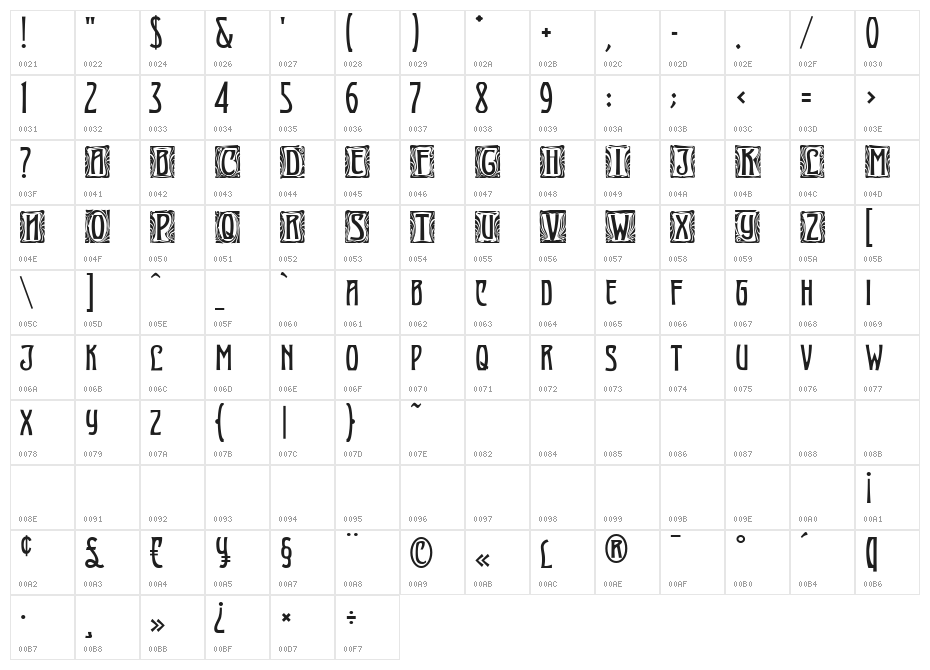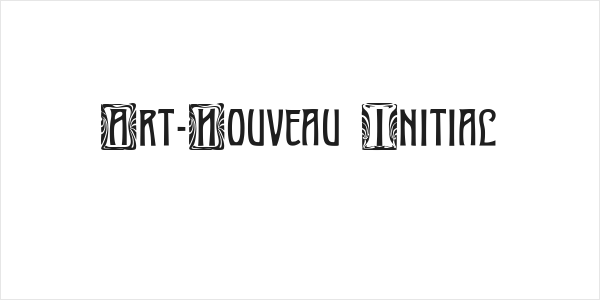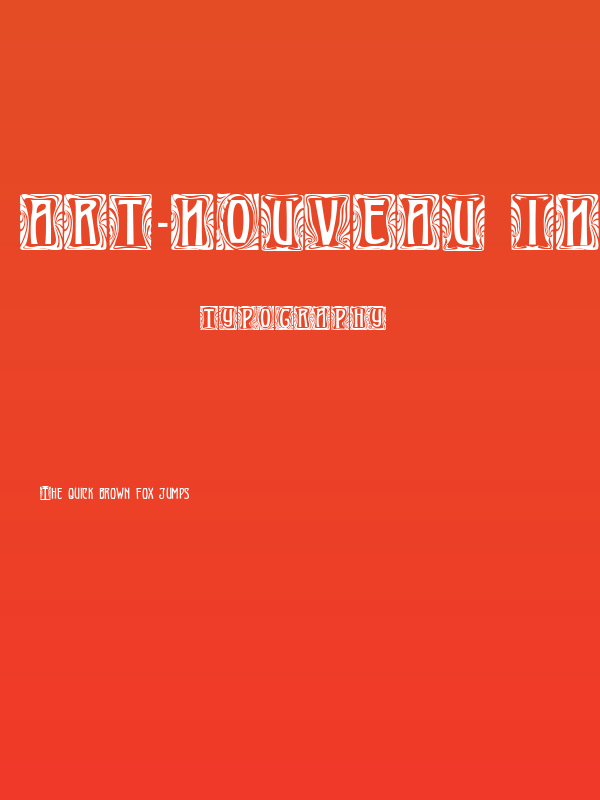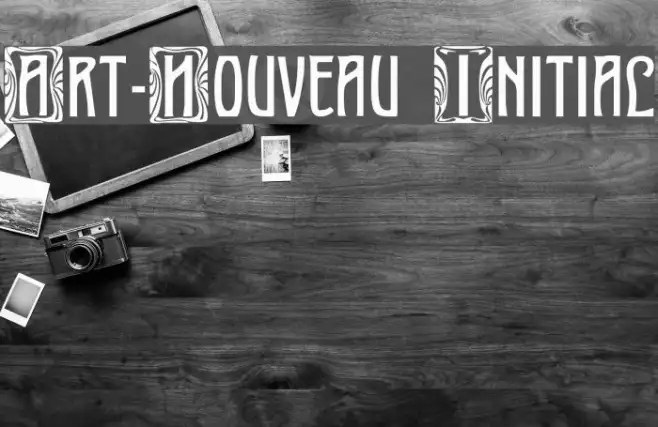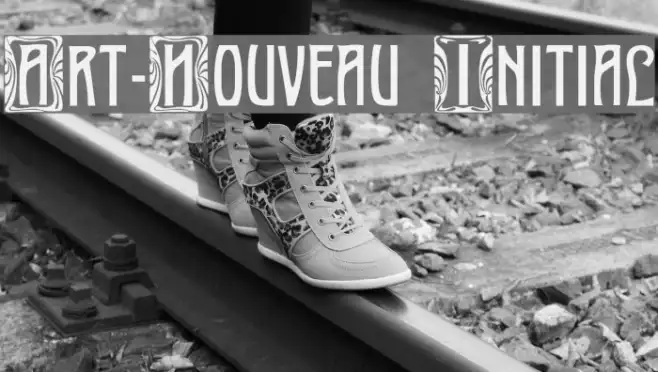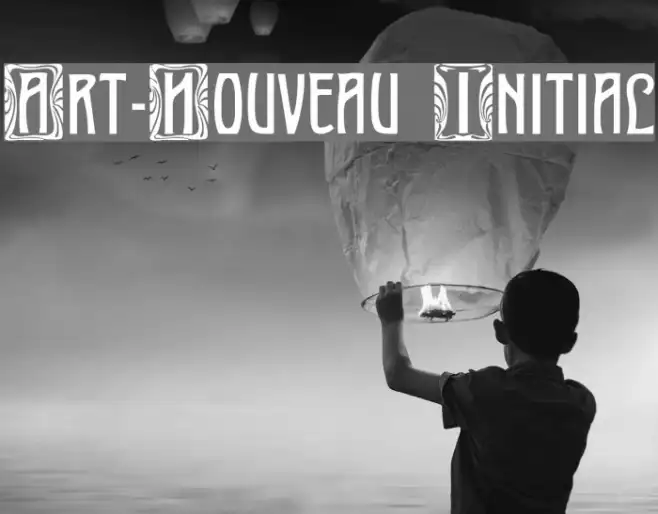
Art-Nouveau Initial Font
Art-Nouveau Initial Description
This font embodies the elegance and intricacy of the Art Nouveau movement, characterized by its ornate and decorative style. The uppercase letters are enclosed in decorative frames, featuring intricate floral and organic motifs that are typical of Art Nouveau design. The lowercase letters and numbers maintain a more streamlined yet still artistic appearance, with gentle curves and elongated forms. The special characters are equally stylized, adding a cohesive and artistic touch to the overall font design. This font is perfect for projects that require a touch of vintage elegance and artistic flair.
| Overall Style | Vintage, Decorative |
| Use Case | Headlines, Logos, Decorative text |
| Proposed Projects | Ideal for vintage-themed invitations, posters, branding, and decorative projects that require an artistic touch. |